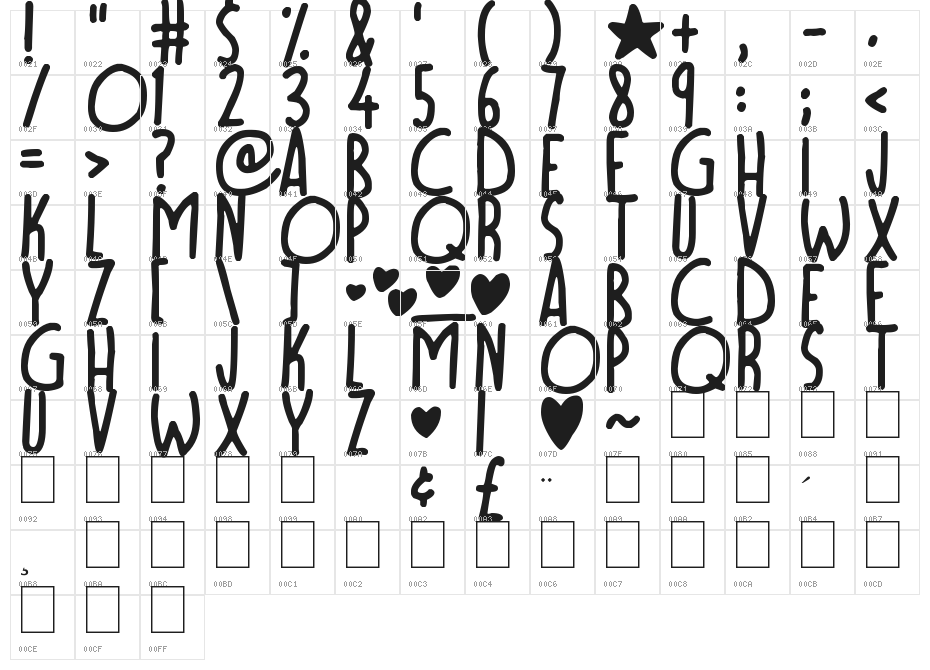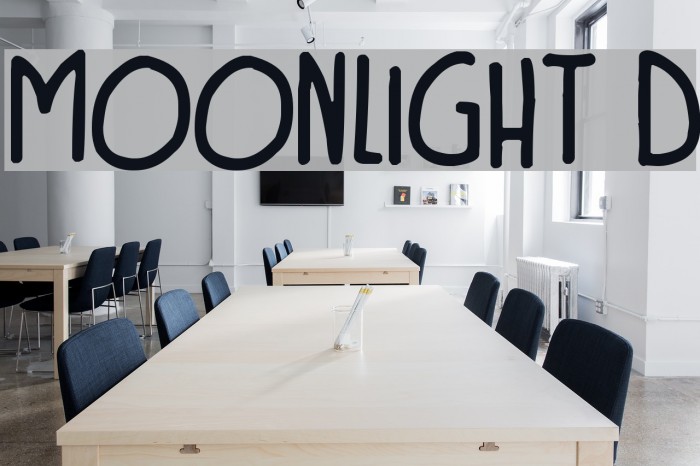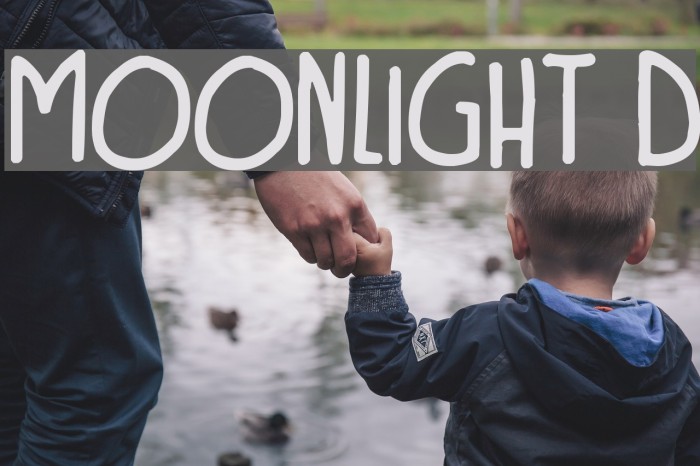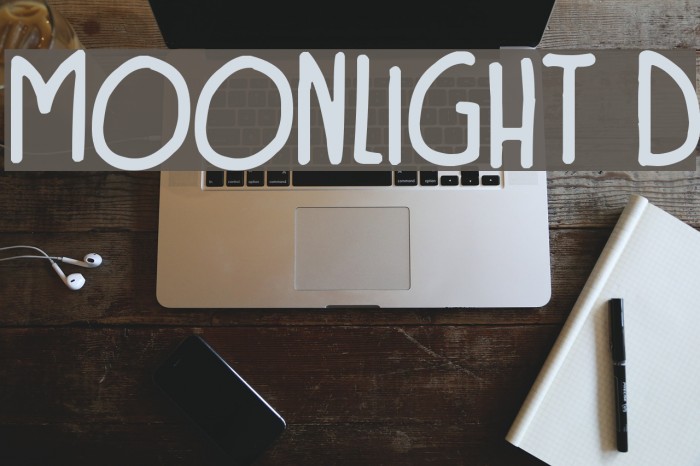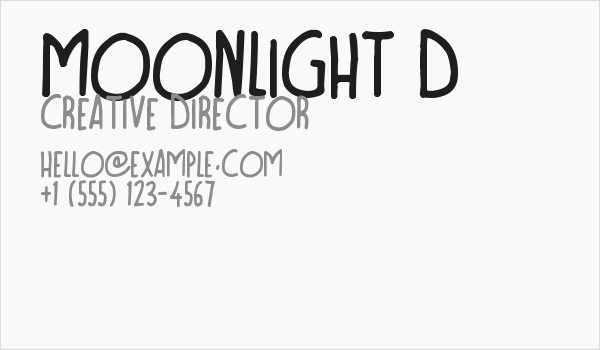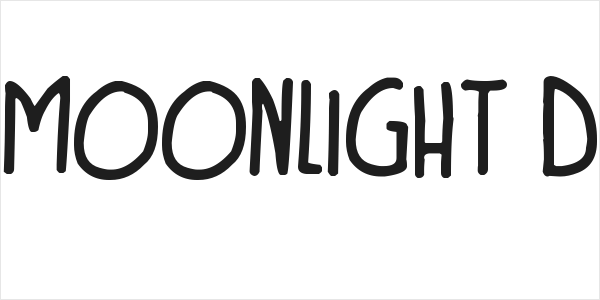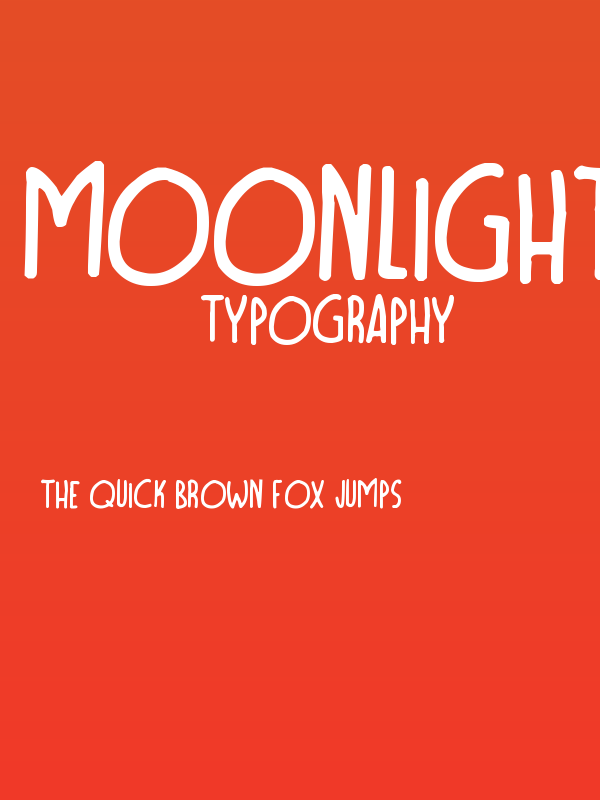
Moonlight D Font
Moonlight D Description
This font features a playful and bold handwritten style with a casual and friendly appearance. The characters are slightly irregular, adding a whimsical touch that makes it stand out. The uppercase and lowercase letters are well-balanced, with rounded edges and a consistent stroke width that gives a cohesive look. The numbers and special characters maintain the same playful aesthetic, making the font versatile for various uses. Its unique style is perfect for projects that require a personal and approachable feel.
| Proposed Projects | Ideal for children's books, greeting cards, playful branding, and social media graphics. |